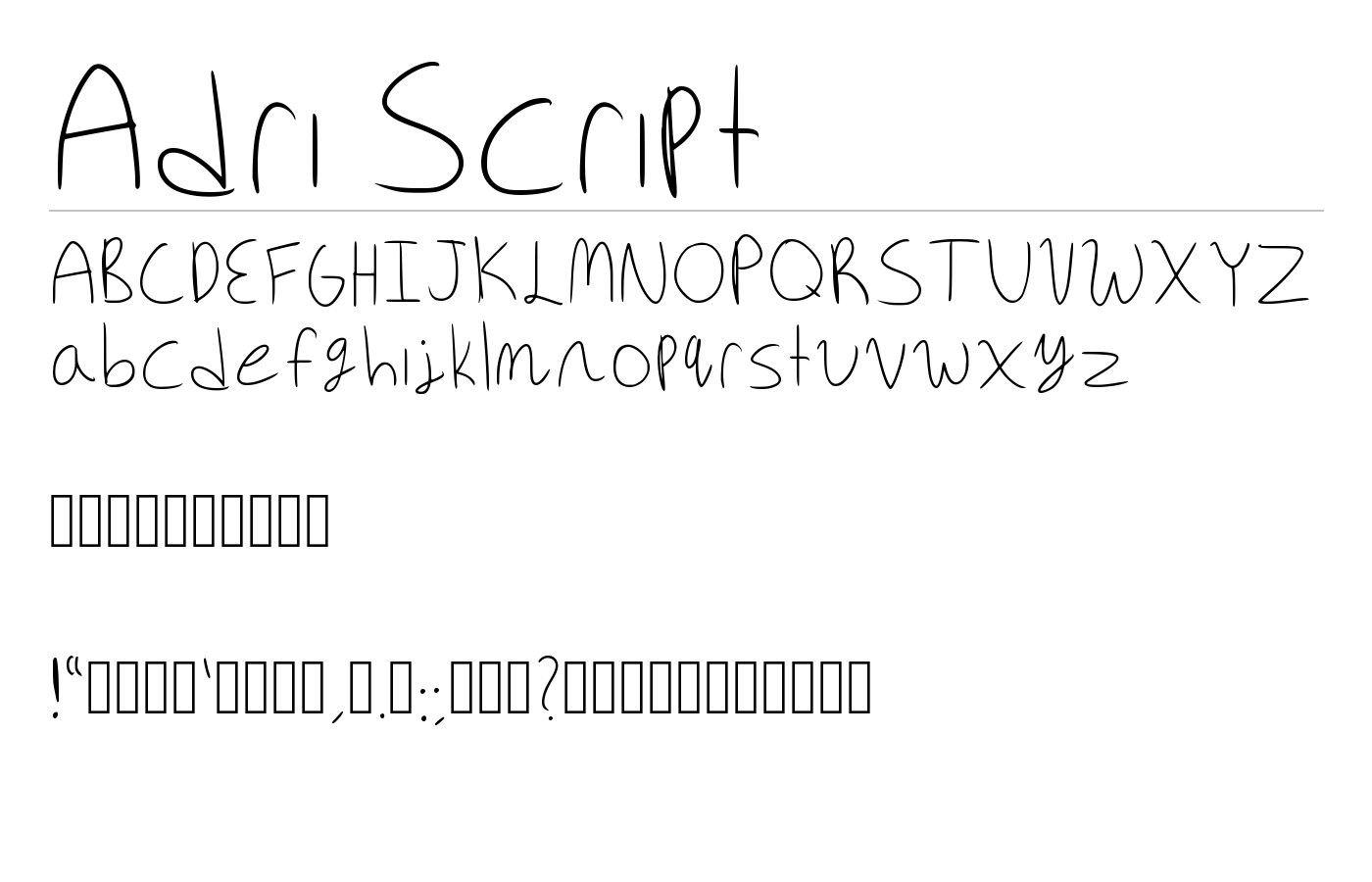
Adri Script is a light, playful handwritten font with tall, narrow letterforms and a casual, airy feel. Its thin strokes and irregular shapes give it a friendly, approachable personality, making it ideal for personal projects, greeting cards, and informal branding. This font works best where a relaxed, authentic touch is desired, adding charm without overwhelming the design.
Adri Script Font